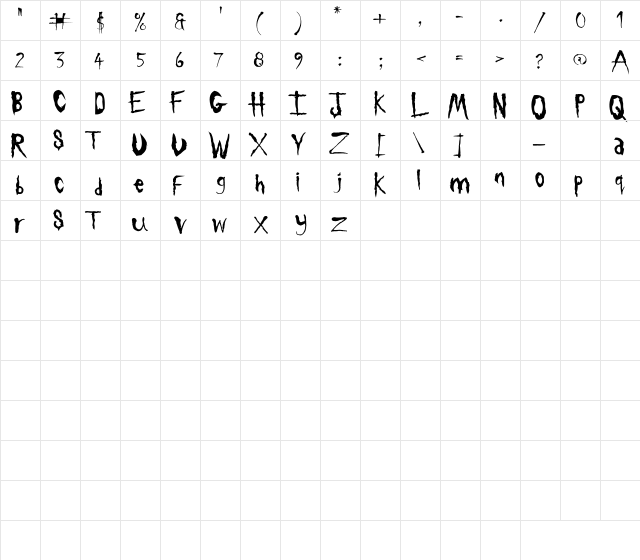
Sickness Regular
Regular · High-Logic High-Logic - Erwin Denissen 1999 ·
Foundry High-Logic
Sickness Regular
FoundryHigh-Logic
DesignerHigh-Logic - Erwin Denissen 1999
Design Context for Sickness Typeface
Sickness is a composed and adaptable typeface that performs quietly and consistently across a wide range of design contexts.